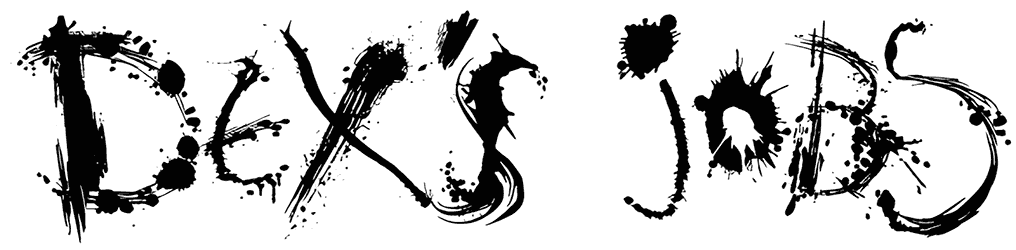
Dex’s Jobs Font
Ditch whatever scary font you’ve used and add Dex’s Jobs to your collection. This horror font, which does not include small letters and numbers, looks like a drop of blood splashed on the wall. This untidy appearance has…
Ditch whatever scary font you’ve used and add Dex’s Jobs to your collection. This horror font, which does not include small letters and numbers, looks like a drop of blood splashed on the wall.
This untidy appearance has caused it to be far away from other dripping fonts and get the top rank. So you no longer need to think about what font to use for your Halloween invitations.